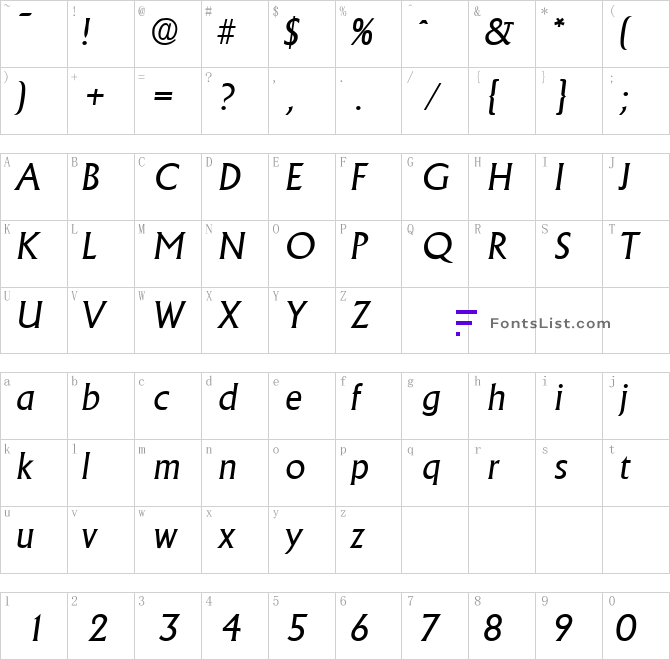
Adelon-RegularIta.ttf is a very beautiful artistic font, Adelon-RegularIta.ttf is widely used in the design and printing of various books and pictures,Adelon-RegularIta.ttf has a strong visual impact,Adelon-RegularIta.ttf is a commonly used font in newspapers, magazines and books, and is used in posters, e-commerce Poster design, store design, logo design, font design and other fields.Adelon-RegularIta.